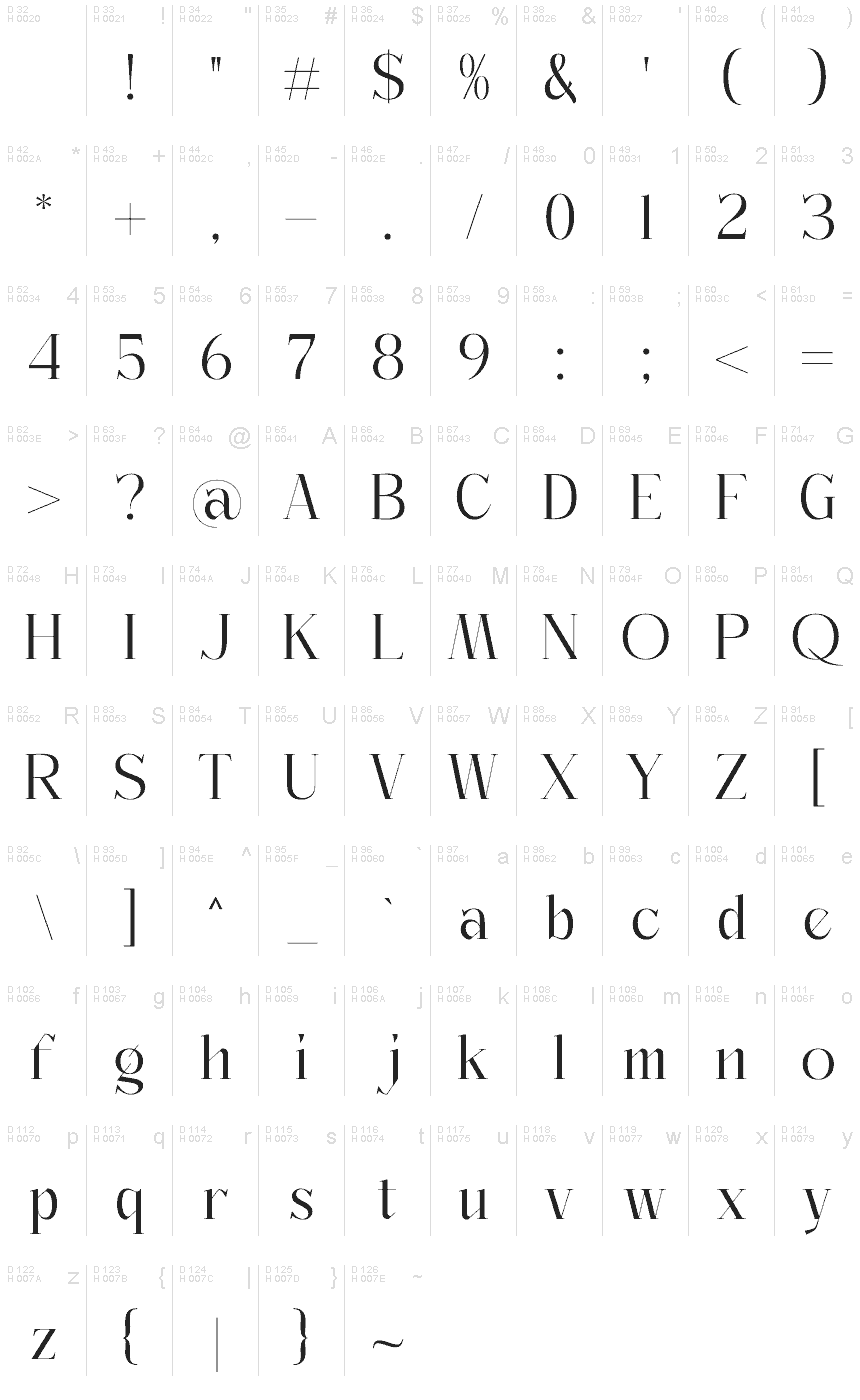
Badgline
Badgline font is an elegant serif font by Storytype Studio. Sophisticated with a modern flair, Badgline takes the best of old-style typography and combines it with geometric influences and minimalist aesthetics for a graceful addition to your designs. Basic or not, letters reach their final glory when presented in stylish dark colors that only highlight their refined features.